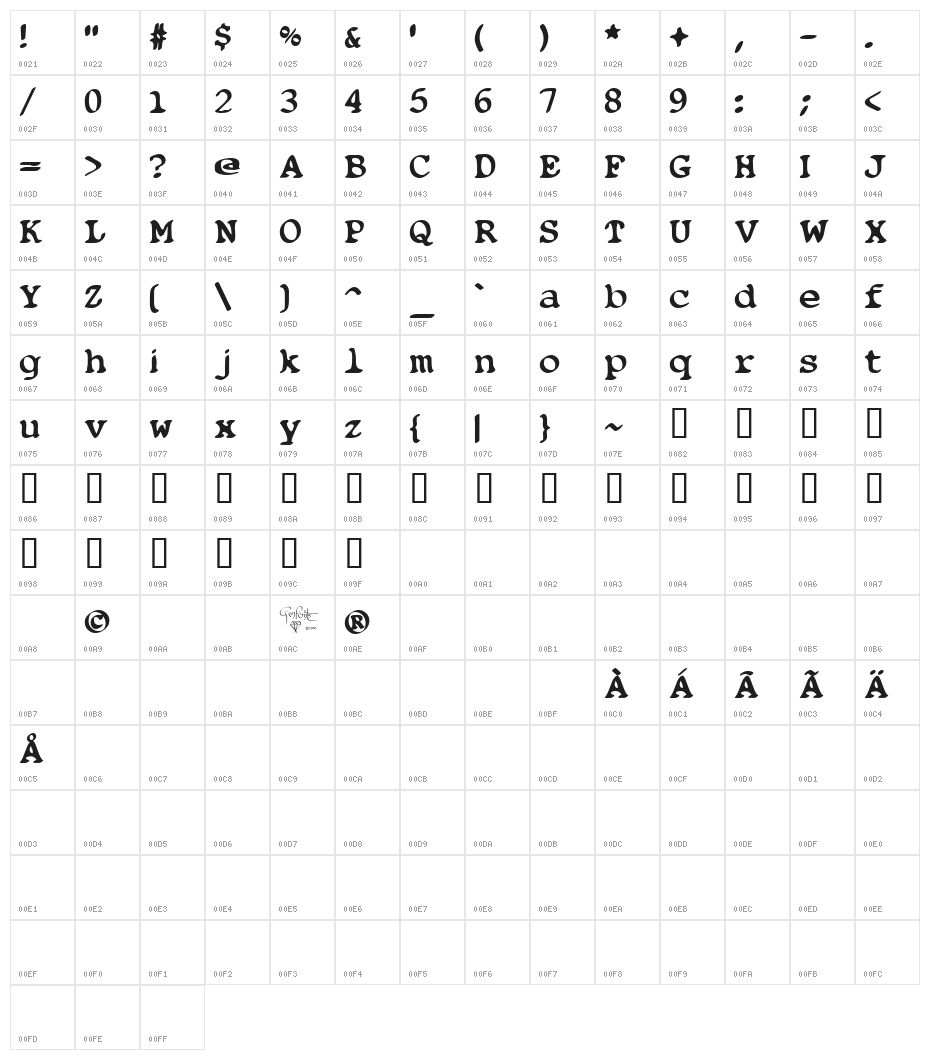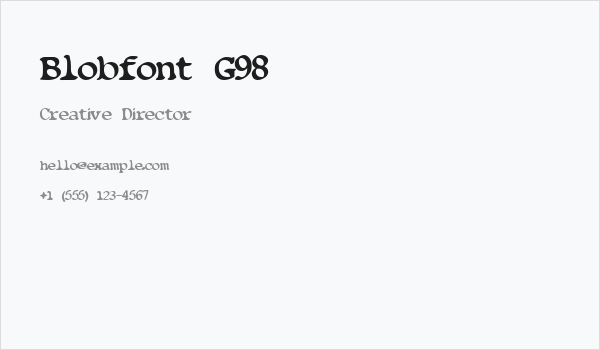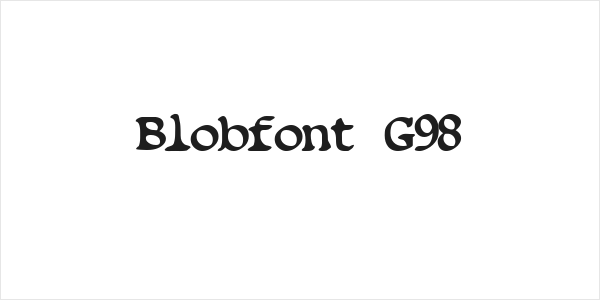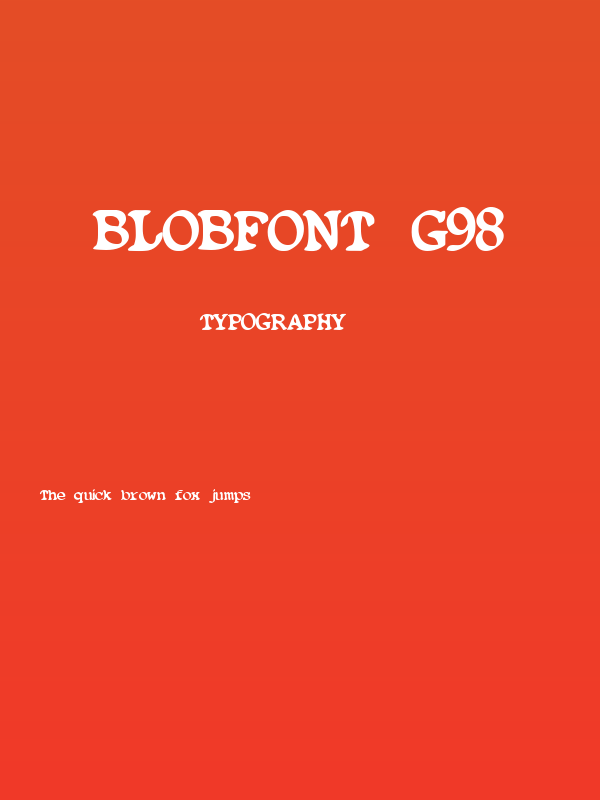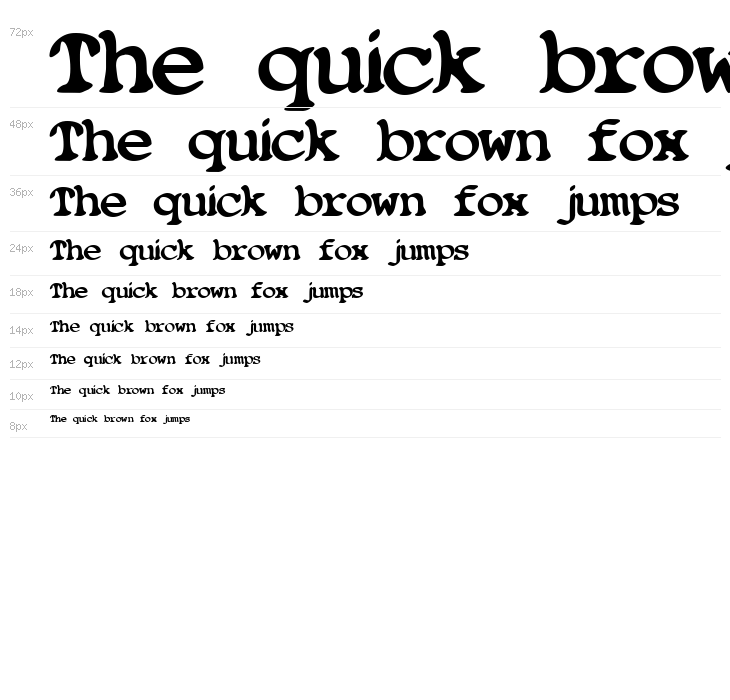
Blobfont G98 Font
Blobfont G98 Description
This font features a bold and playful design with a unique, organic flow to each character. The letters have a rounded, blob-like appearance, giving them a whimsical and informal feel. The strokes are thick and consistent, creating a strong visual impact. The font maintains a consistent weight throughout, with slightly exaggerated curves and edges that add to its distinctive style. The characters are well-spaced, ensuring readability while maintaining the font's quirky aesthetic. This font is ideal for projects that require a fun and eye-catching look.
| Proposed Projects | Ideal for children's books, playful branding, posters, and creative advertising. |